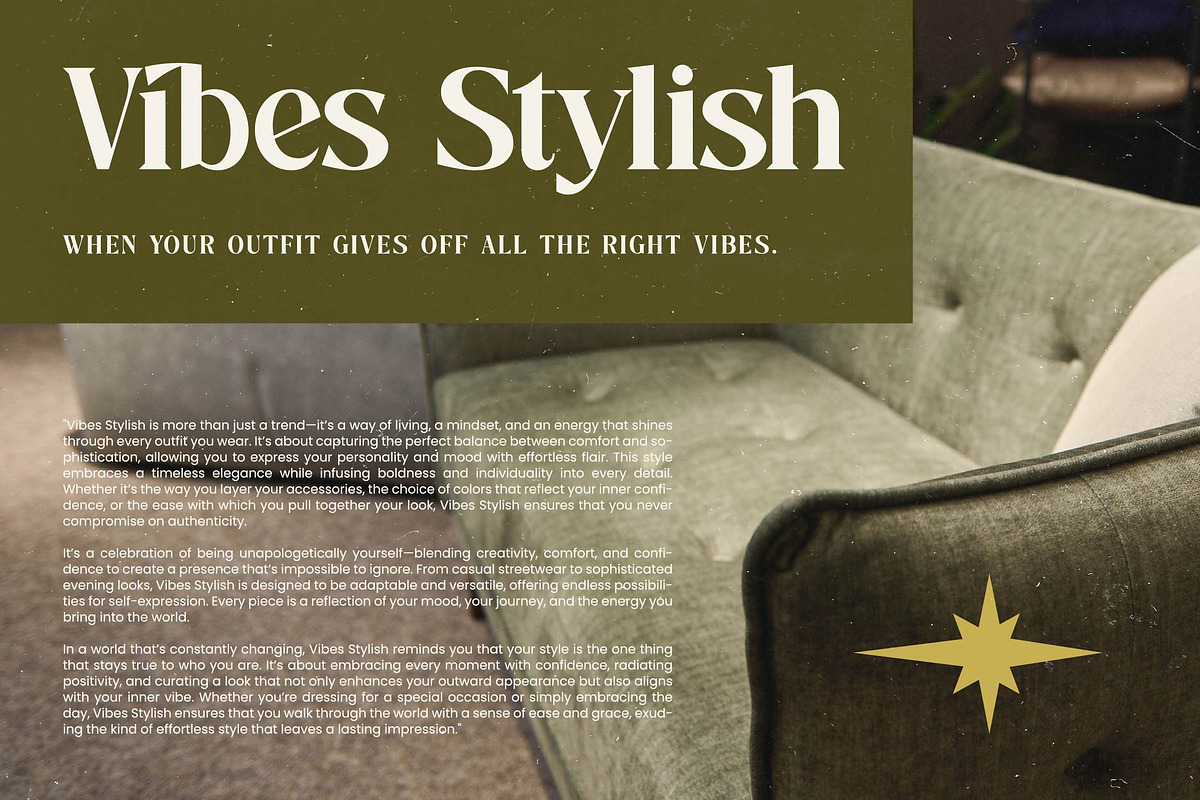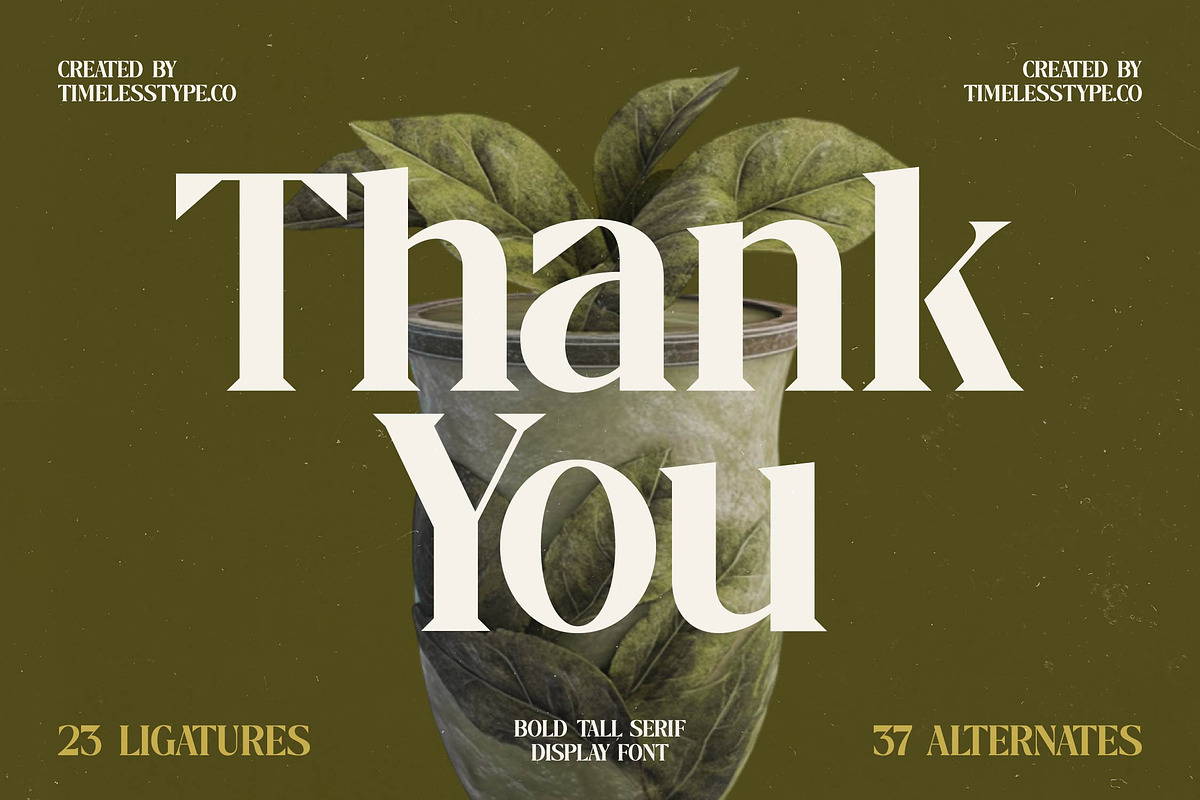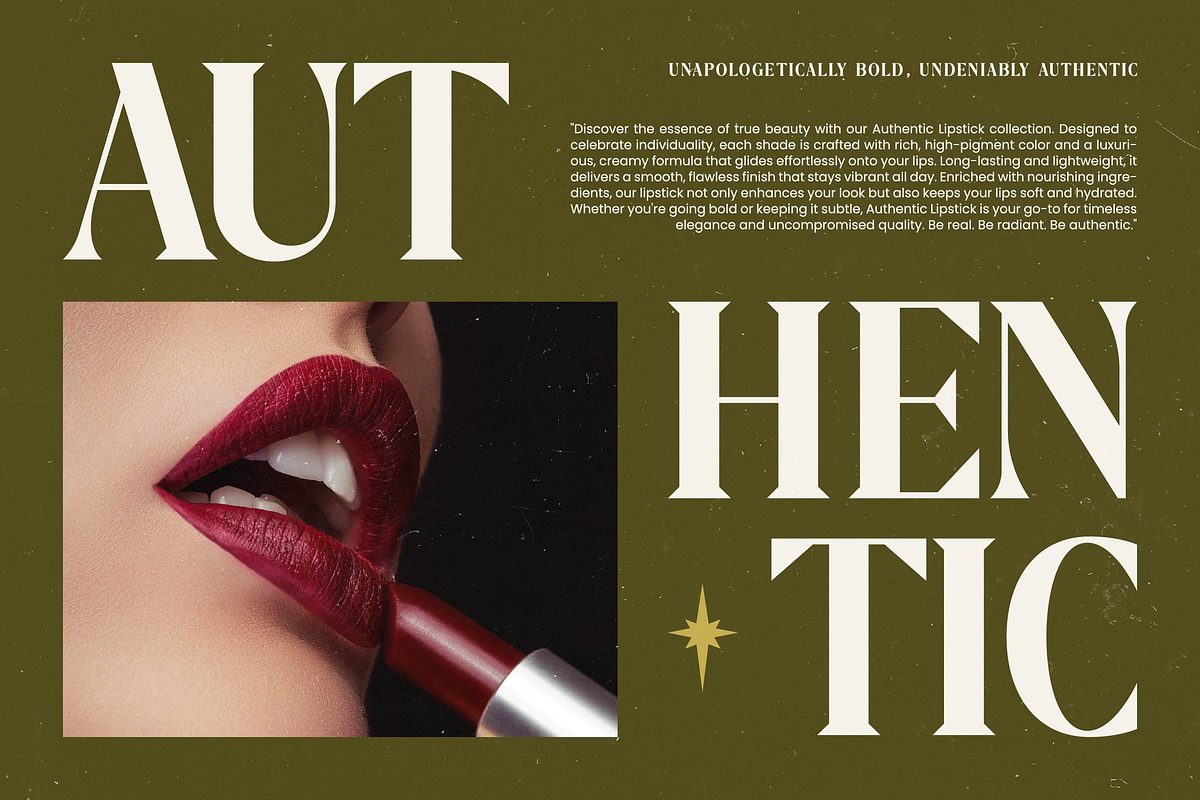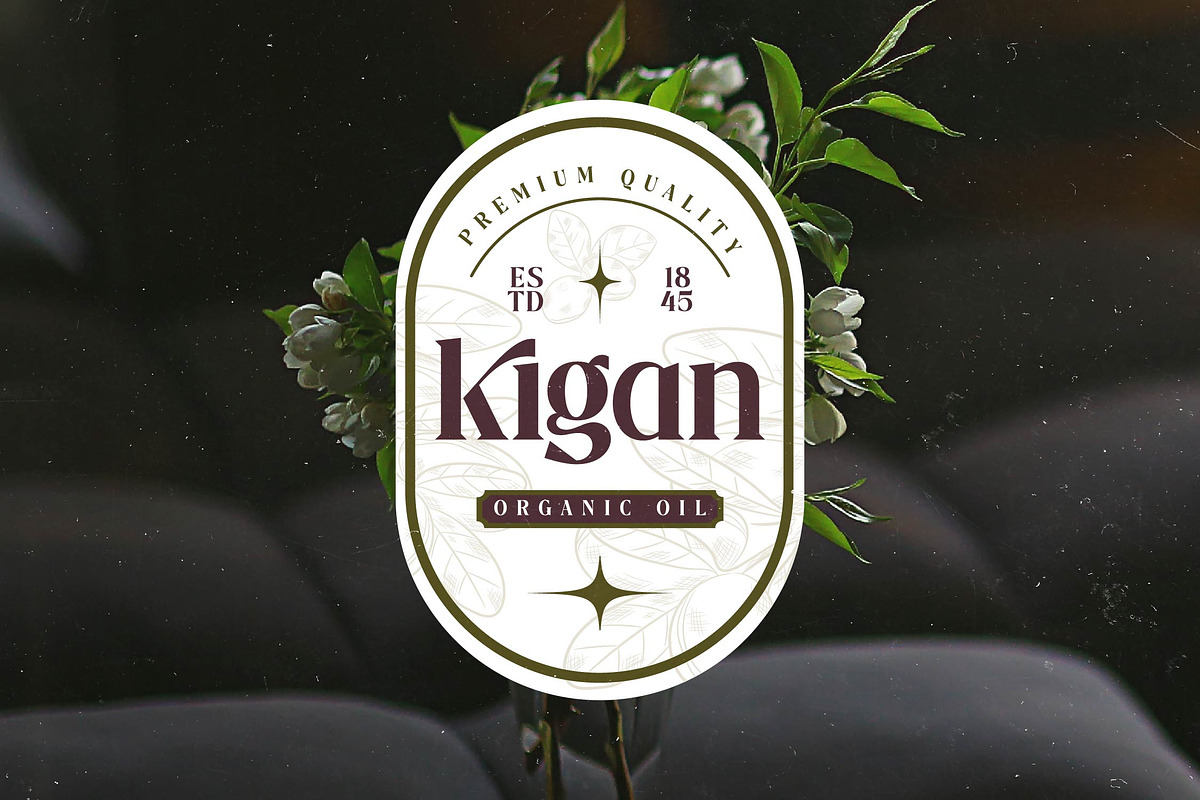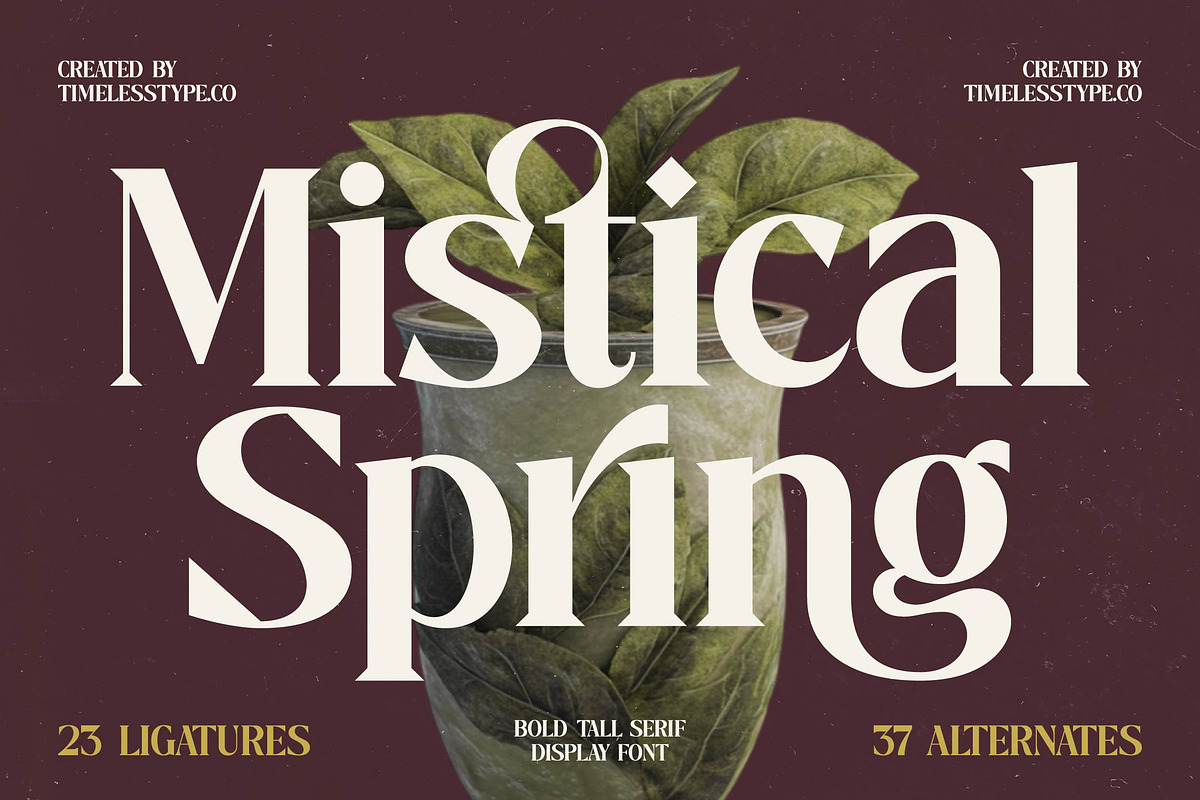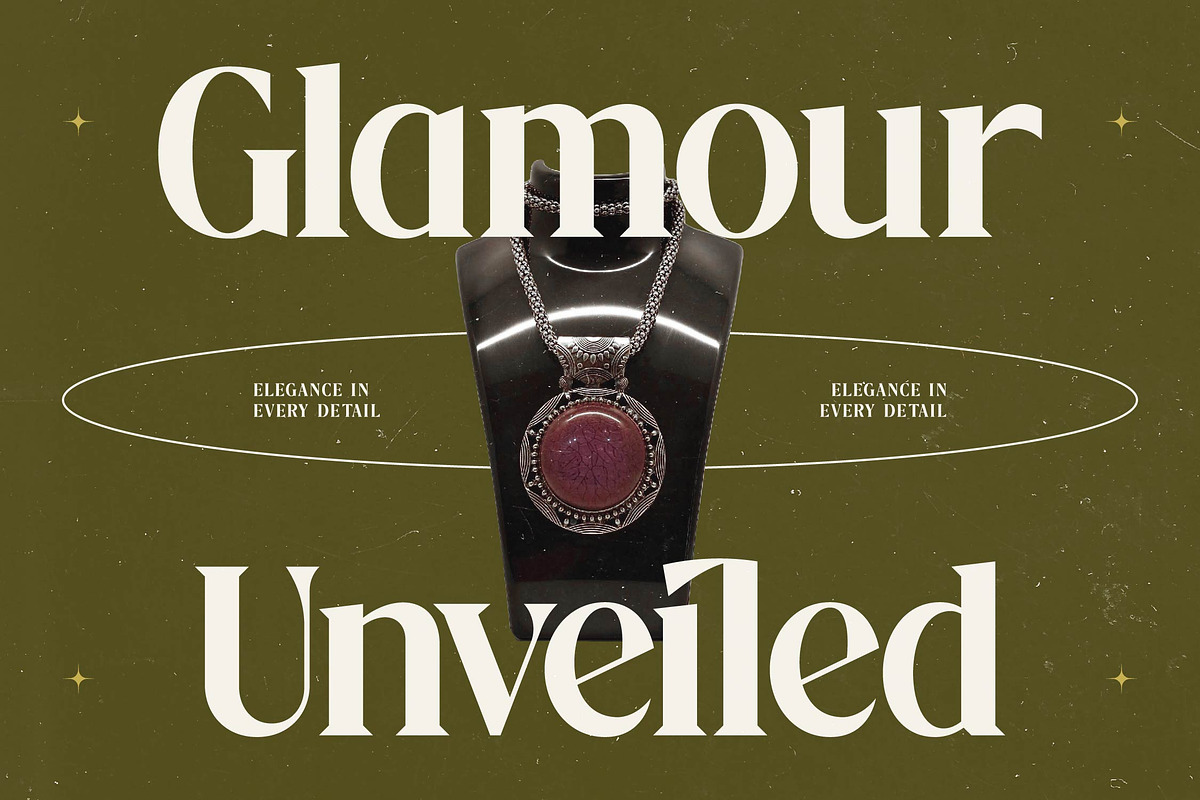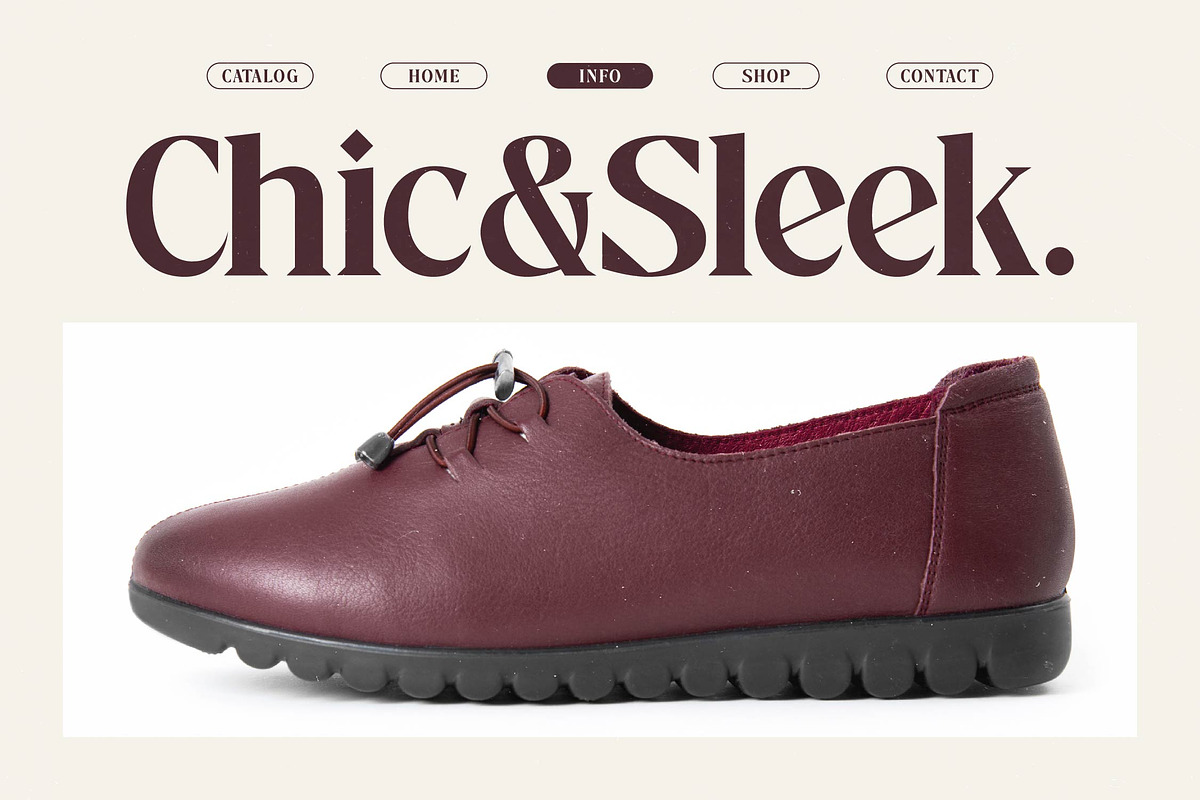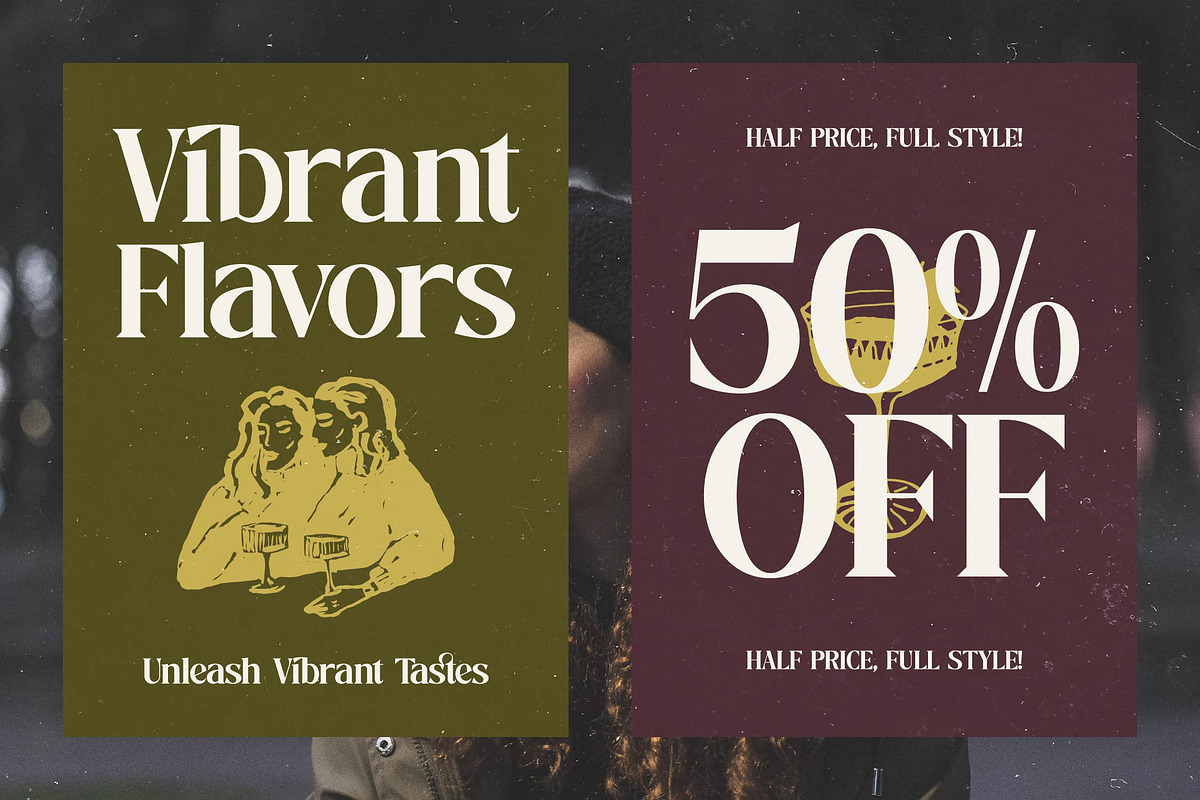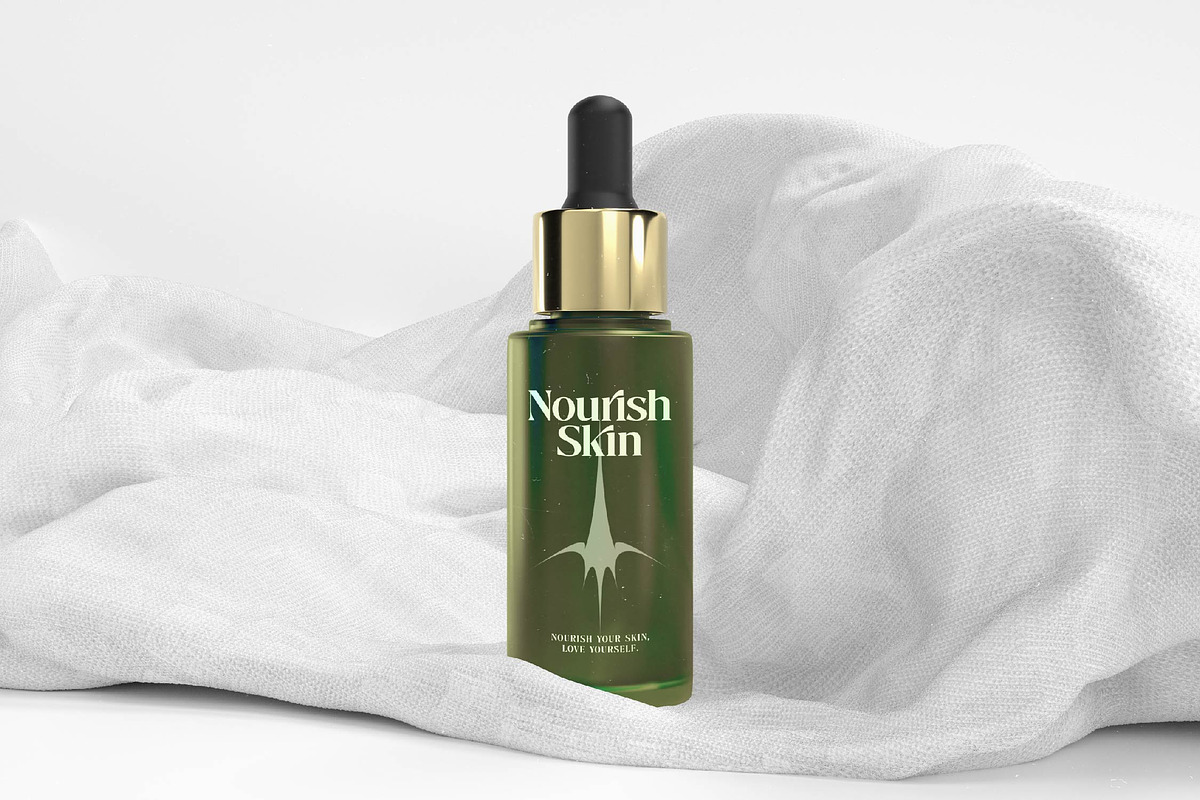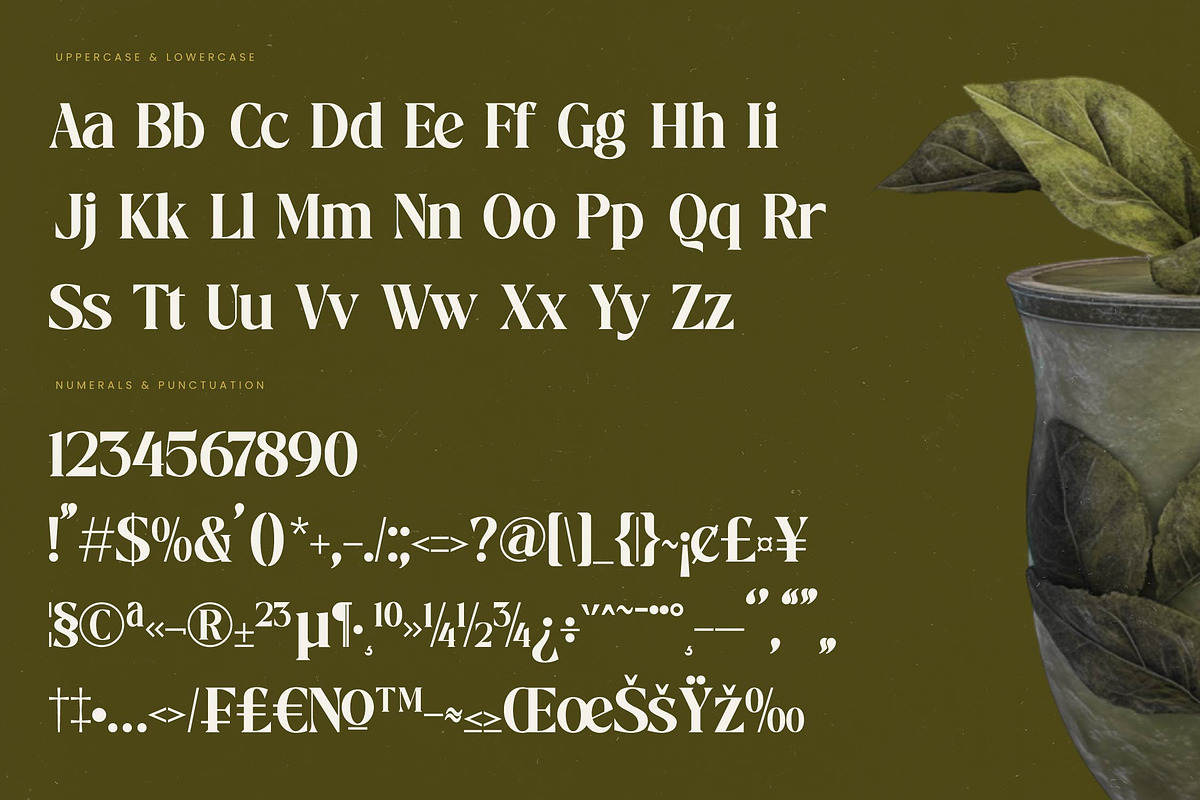
Mistical Spring - Modern Serif
Unlock a world of refined elegance and botanical grace with the enchanting presence of Mistical Spring. This typeface is a sophisticated invitation to elevate your creative vision through a harmonious blend of classic structure and modern fluidity.
Inspired by the quiet bloom of an enchanted garden at dawn, the letterforms capture the delicate balance between timeless architectural strength and the organic movement found in nature's awakening. It creates an atmosphere that is both grounded and dreamlike, perfect for designs that require a touch of magic.
This modern serif display demands immediate attention with its luxury typography and high-contrast serif strokes, making it an essential tool for designers seeking a premium editorial font presence with significant branding impact. Every character is meticulously crafted to ensure your message carries a sense of prestige and artistic intention.
Perfectly aligned with the current modern serif trend, this typeface elevates the standard of editorial display fonts through its unique character-driven typography that feels both contemporary and enduringly classic. It meets the demands of the modern marketplace while maintaining a soul that is deeply rooted in traditional craftsmanship.
Transform your next logo design or high-profile branding project into a work of art, as this font is ideally suited for sophisticated editorial layouts, high-end packaging, romantic wedding stationery, and avant-garde fashion lookbooks. Its versatile nature allows it to transition seamlessly from digital screens to tactile print materials.
Equipped with a rich set of 23 ligatures and 37 alternates, the package also includes decorative swashes and full multilingual support for international characters to ensure your designs resonate with a global audience. These technical features provide endless opportunities for customization and unique typographic expressions.
- Ligature 23 Alternate 37